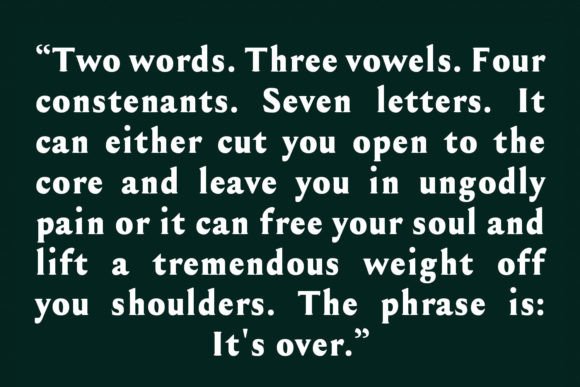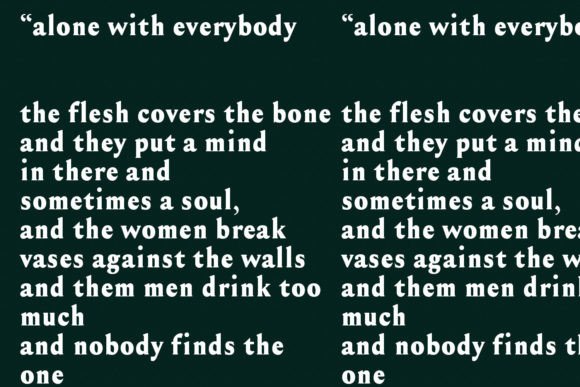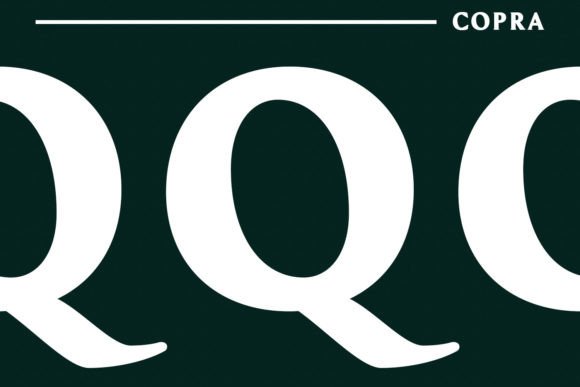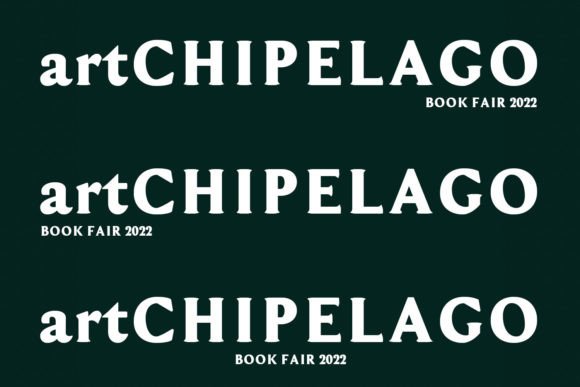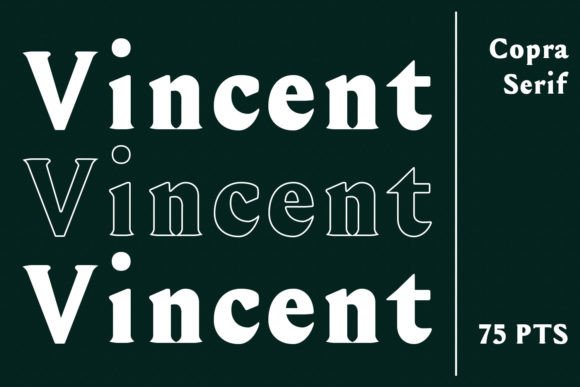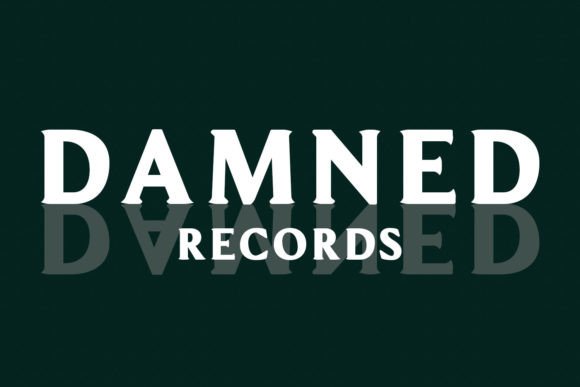
Copra Font: Elevate Your Designs with a Modern Serif Display Font
Are you a designer or crafter looking for a versatile and stylish font to elevate your projects? Look no further than Copra Font, a modern serif display font that’s perfect for creating stunning posters, hats, t-shirts, mugs, and more. In this article, we’ll dive into the world of Copra Font, exploring its features, benefits, and uses, as well as provide tips and inspiration for incorporating it into your designs.
What is Copra Font?
Copra Font is a modern serif display font designed to make a statement. Its sleek lines, elegant curves, and refined details make it perfect for headlines, titles, and short texts. With its high contrast and dramatic flair, Copra Font is ideal for creating eye-catching designs that demand attention.
Key Features of Copra Font
- Modern serif design: Copra Font boasts a fresh and contemporary take on traditional serif typography, making it perfect for designers and crafters looking for a stylish edge.
- Display font: With its high contrast and dramatic flair, Copra Font is designed to make a statement, making it perfect for headlines, titles, and short texts.
- Versatile: Copra Font can be used for a wide range of projects, from posters and flyers to hats, t-shirts, mugs, and more.
- Easily readable: Despite its ornate design, Copra Font remains easily readable, making it perfect for use in both digital and print formats.
Benefits of Using Copra Font
So, why choose Copra Font for your designs? Here are just a few benefits of using this stunning font:
- Adds elegance and sophistication: Copra Font brings a touch of refinement and luxury to any design, making it perfect for high-end brands, events, and promotions.
- Creates visual interest: With its unique design and high contrast, Copra Font adds visual interest and creates a focal point in any design.
- Versatile and adaptable: Copra Font can be used in a variety of contexts, from large-scale posters to small-scale merchandise.
Using Copra Font for Design and Crafting
Copra Font is perfect for a wide range of design and crafting projects, including:
- Poster design: Create stunning posters for events, promotions, or advertising with Copra Font.
- Merchandise design: Use Copra Font to design hats, t-shirts, mugs, and other merchandise that demands attention.
- Stationery and invitations: Add a touch of elegance to your stationery, invitations, and greeting cards with Copra Font.
Tips for Working with Copra Font
Here are a few tips for getting the most out of Copra Font:
- Experiment with sizes and colors: Copra Font looks great in a variety of sizes and colors, so don’t be afraid to experiment and find the perfect combination for your design.
- Pair with complementary fonts: Pair Copra Font with complementary fonts to create visual interest and add depth to your design.
- Use for headlines and titles: Copra Font is perfect for headlines and titles, so use it to create a focal point in your design.
Copra Font is a versatile and stylish modern serif display font that’s perfect for designers and crafters looking to elevate their projects. With its sleek design, high contrast, and dramatic flair, Copra Font is ideal for creating stunning posters, hats, t-shirts, mugs, and more. Whether you’re looking to add elegance and sophistication or create visual interest, Copra Font is the perfect choice. So why wait? Download Copra Font today and start creating your own stunning designs!